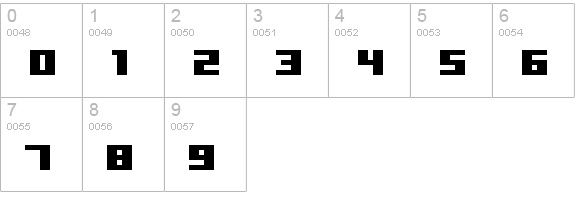
hooge 05_66 Font Details
Hooge 05_66 font is a modern and sleek typeface that exudes sophistication and elegance. With its clean lines and contemporary feel, this font is perfect for a wide range of design projects, from branding to editorial layouts. The versatility of Hooge 05_66 makes it a great choice for both digital and print applications. Best of all, Hooge 05_66 font is available for free download at FontsMarket.com. This means you can easily access this high-quality font without any cost, making it a valuable addition to your font library. Whether you're a seasoned designer or just starting out, Hooge 05_66 font is a must-have for creating professional and visually appealing designs. Download it today and elevate your projects with this exceptional typeface.